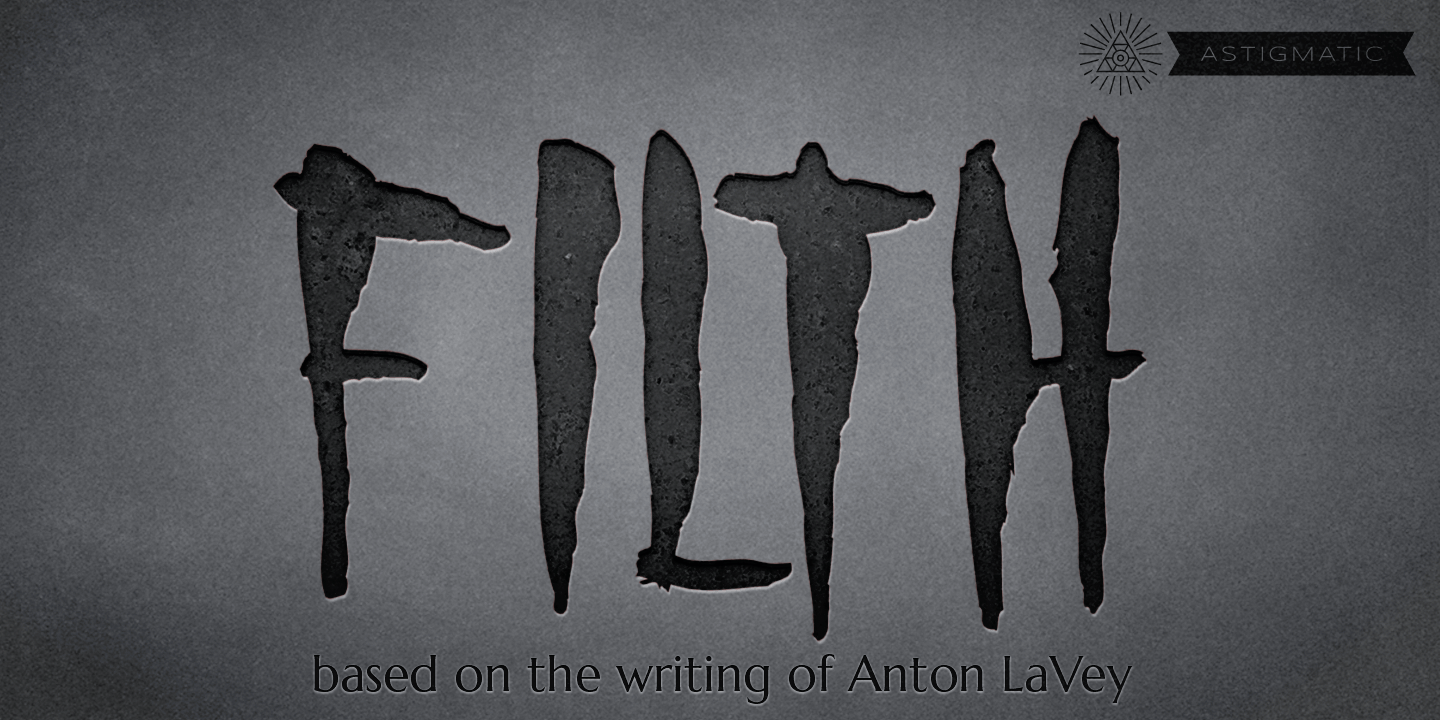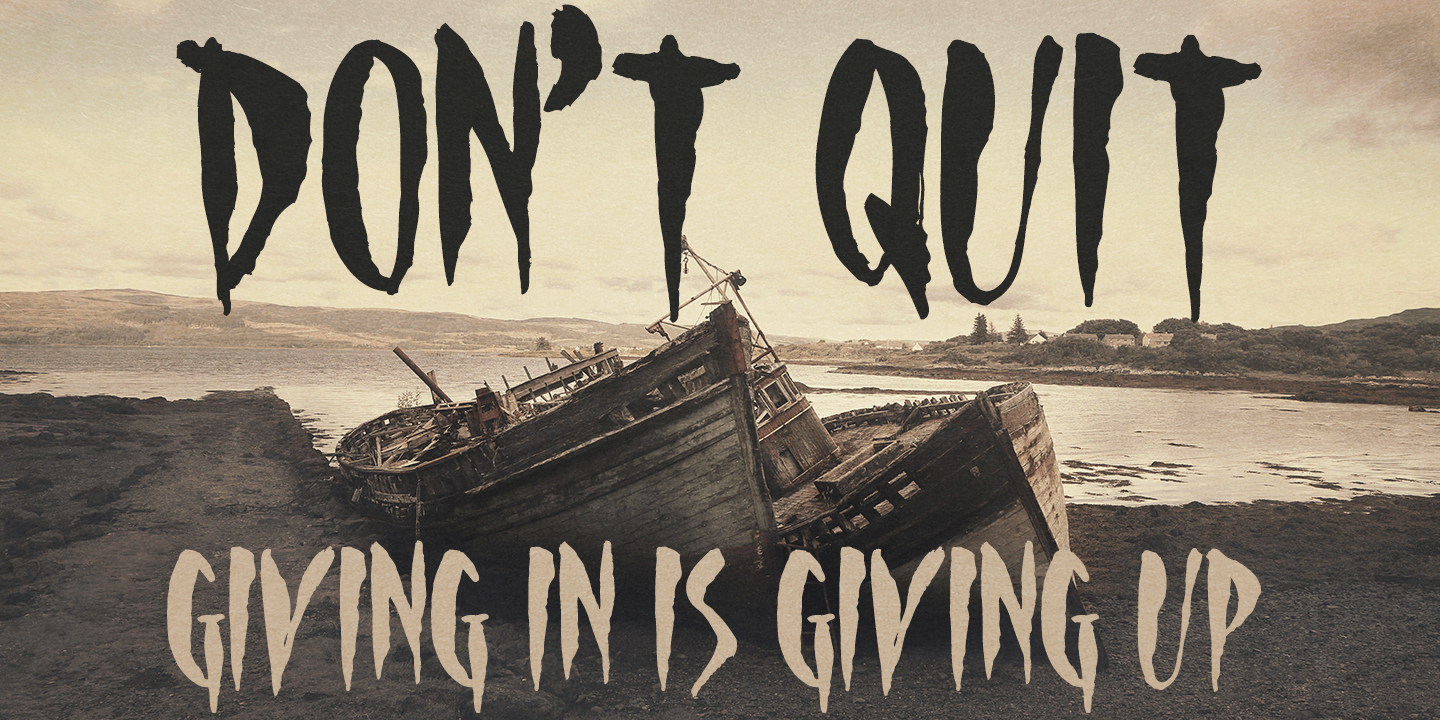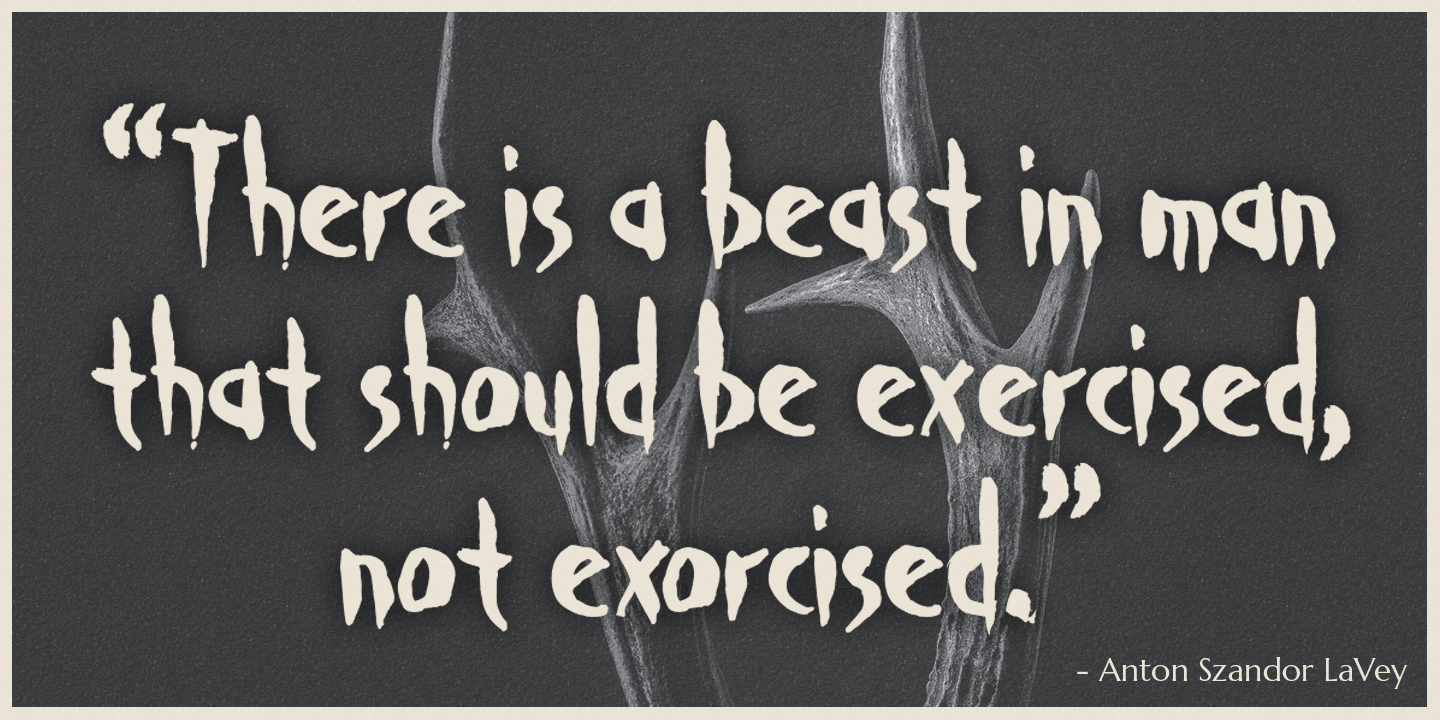
Filth
The Filth Font was developed from a magazine layout I had seen featuring Anton LaVey which had his brush lettering depicted as well. An dark and eerie feeling handwriting style, I decided to recreate and expand what I saw into a typeface. And so it came to be.
Some designs are meant to be clean, other need to be dirty, Filth is waiting for you to find it.